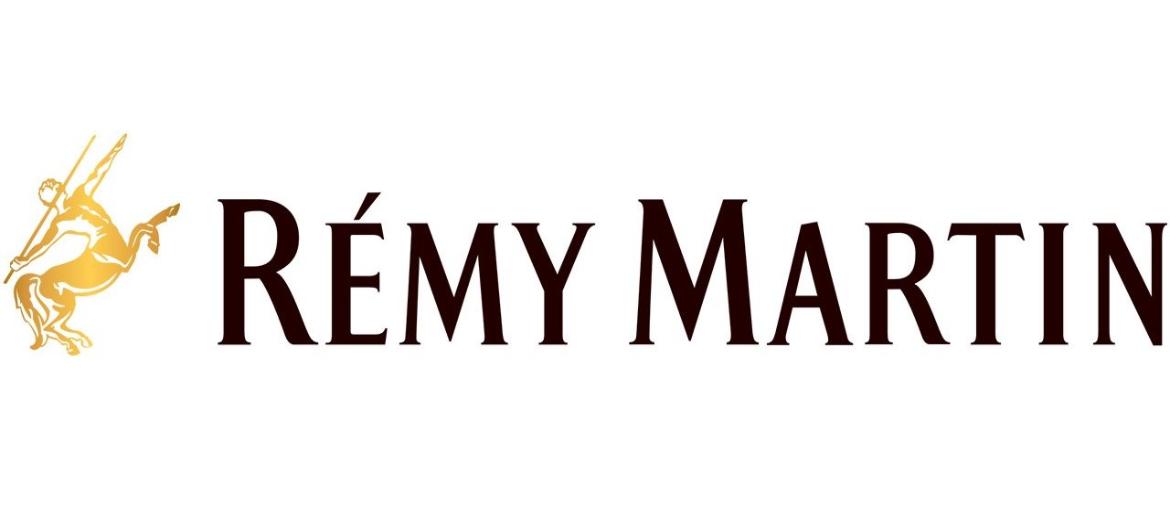
Remy Martin Font
What Font is Remy Martin?
The Remy Martin Font used in the brand’s word-mark is most likely a custom-designed typeface created specifically for the label. A premium font that comes very close in style is Candide Condensed Medium. For designers seeking a no-cost option, there’s also a free alternative font available that replicates the elegant, refined serif aesthetic of the original—making it ideal for recreating the look of the brand’s typography in creative projects.
About Remy Martin
Remy Martin is a French cognac brand founded in 1724 and renowned for its “Fine Champagne” quality. The logo features a classic serif word-mark paired with the iconic centaur imagery, reflecting heritage, craftsmanship, and luxury. The typography supports these values by being bold yet timeless, combining textual clarity with a premium visual identity.